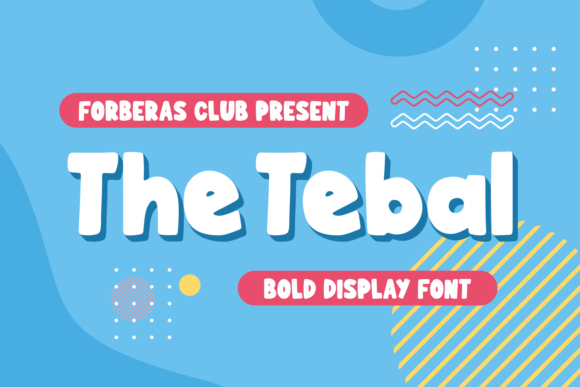
Introducing "The Tebal Font": Your Gateway to Unparalleled Expression.
In the realm of typography, where letters dance and stories unfold, allow us to present you with "The Tebal Font" – a creative masterpiece designed to captivate and inspire. This remarkable display font is more than just a collection of glyphs. It's a gateway to a world of limitless expression, where your ideas take flight and your imagination knows no bounds.
Step into the world of "The Tebal Font" and let its captivating charm sweep you off your feet. This font is a symphony of creativity, a harmonious blend of playful curves and energetic strokes, each letter a masterpiece in its own right, evoking a sense of joy and authenticity. It's a perfect choice for any child's activity or school project, where imagination reigns supreme.
With "The Tebal Font," transform your projects into captivating adventures, your invitations into works of art, and your posters into vibrant expressions. Let its playful personality add a touch of whimsy to your designs and let your words dance with delight.
Immerse yourself in a world where typography meets artistry, where every letter tells a story, and every design becomes a reflection of your unique style. "The Tebal Font" is not just a font; it's an invitation to unleash your creativity and let your imagination soar.